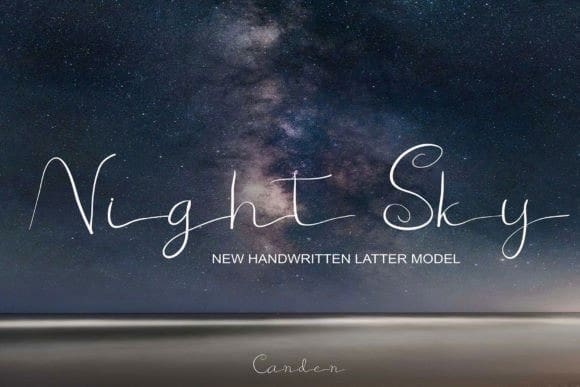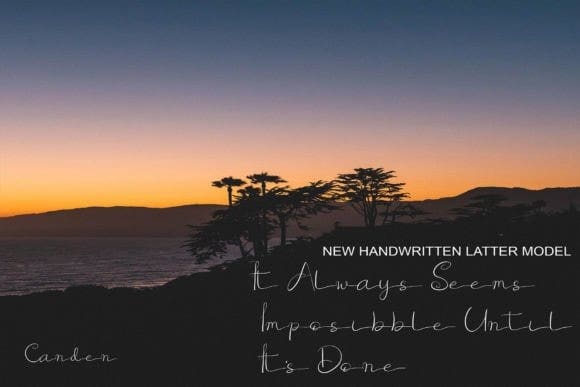
Atunia Tursina Font
Atunia Tursina Font is a font that was written by hand using a pen tablet. It is simple and can be used for websites, or for advertising. Even though this font looks simple, it still looks cool and stylish.